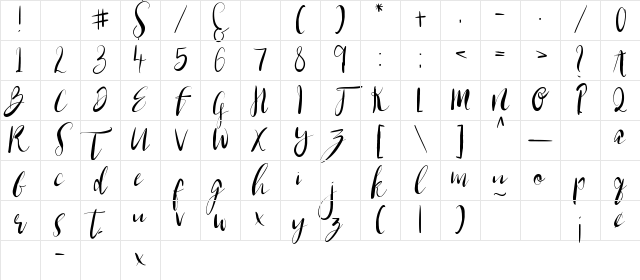
Illabarook Regular
Illabarook Family
Design Context for Illabarook
Illabarook is a composed and adaptable typeface that performs quietly and consistently across a wide range of design contexts.